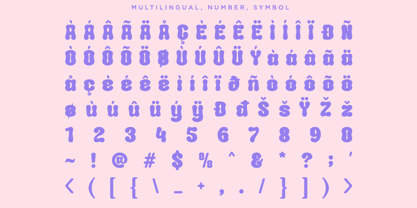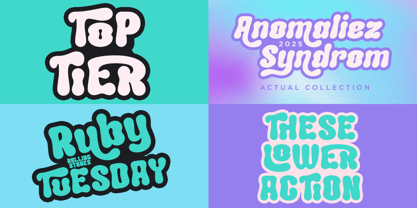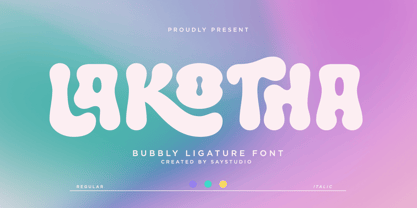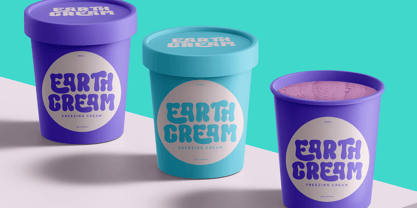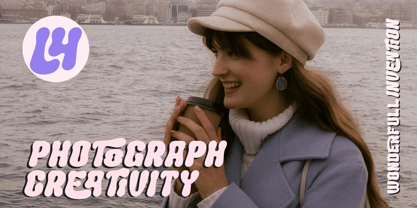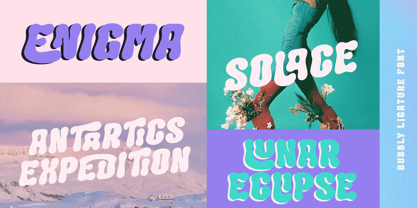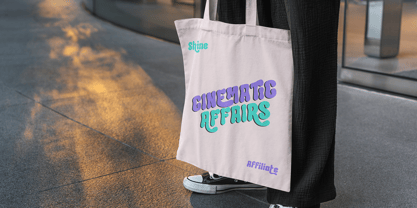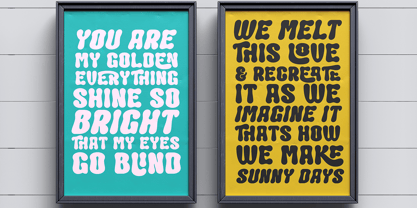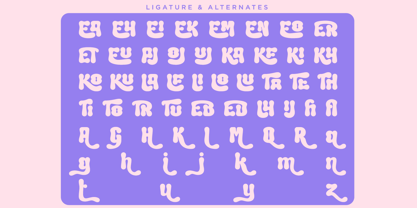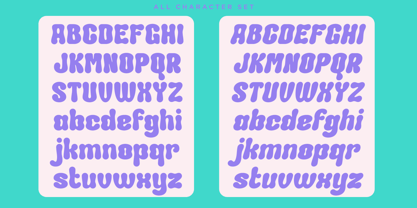
Lakotha
by Say Studio
The Lakotha Font Family was designed by Mussyayin and published by Say Studio. Lakotha contains 2 styles and family package options. More about this family
Lakotha is a bubbly ligature font that radiates joy and creativity. With its soft, rounded shapes and playful curves, this font adds a friendly and fun personality to any design. Perfect for posters, branding, packaging, and children’s projects, Lakotha brings a modern retro vibe with a smooth flow. Available in Regular and Italic, it’s ideal for bold headlines or cheerful logos that stand out beautifully. File Included : - Lakotha Regular - Lakotha Italic - Stylistic Ligatures - Stylistic Alternates - Multilingual Support Thanks, Have a nice day Say Studio
Designers: Mussyayin
Foundry: Say Studio